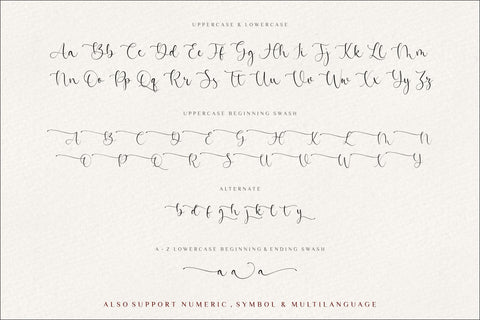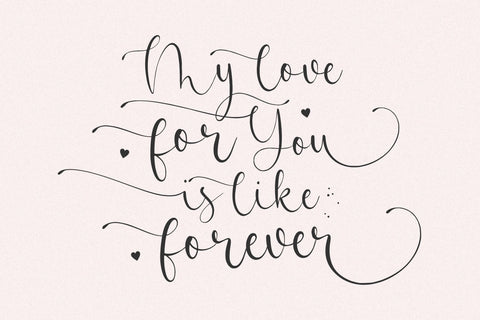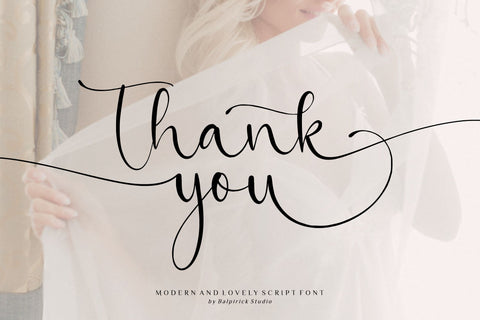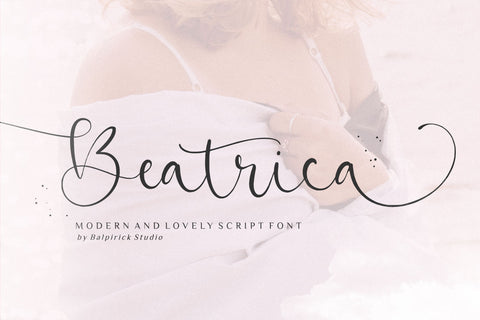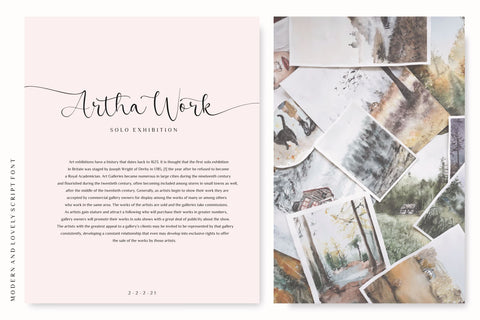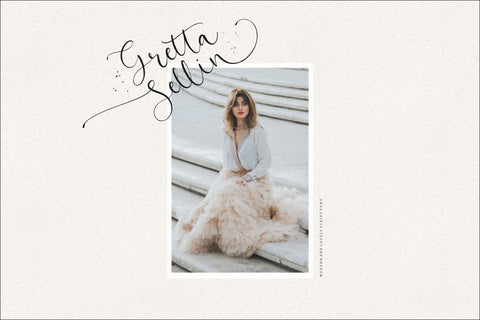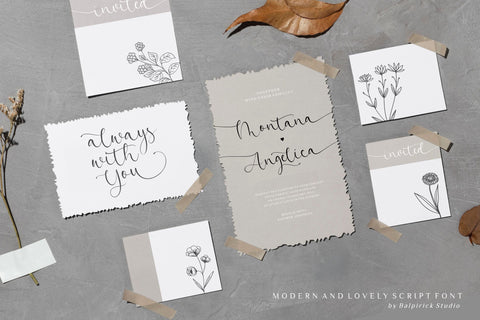
Beatrica Modern And Lovely Script Font
Proudly Present, Beatrica Font.
Beatrica is a Modern And Lovely Script Font.
Beatrica is perfect for product packaging, branding project, megazine, social media, wedding, or just used to express words above the background.
Uppercase & Lowercase font Stylistic Alternates Ligatures Symbols & Punctuation OpenType Features.